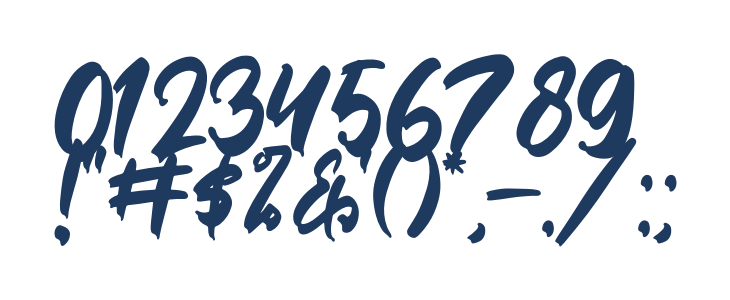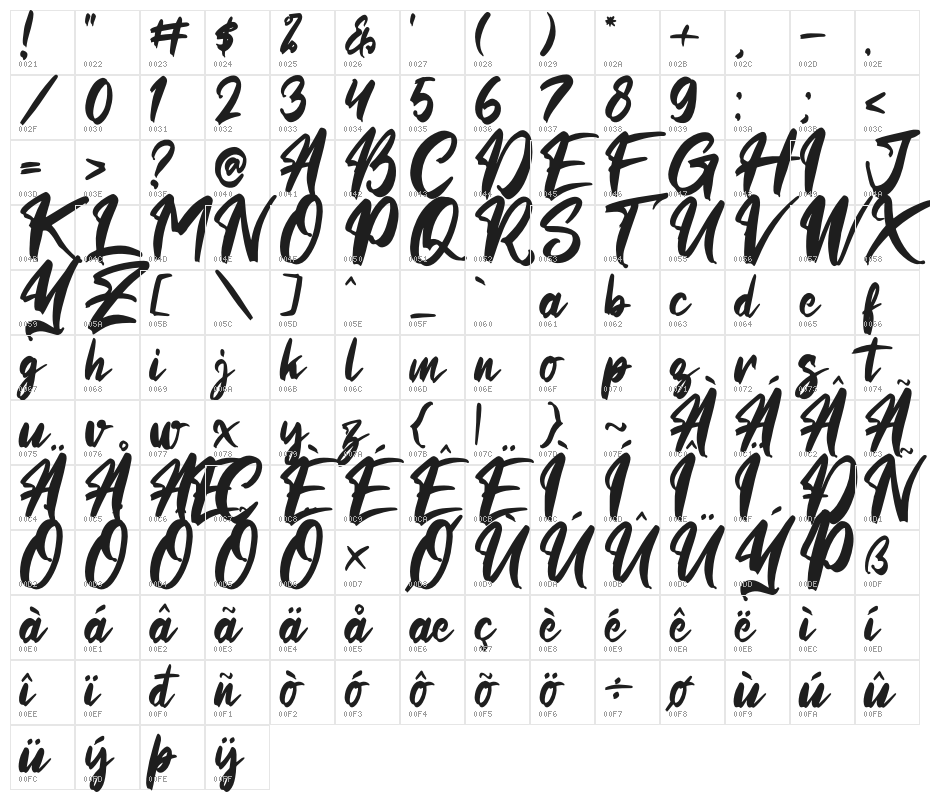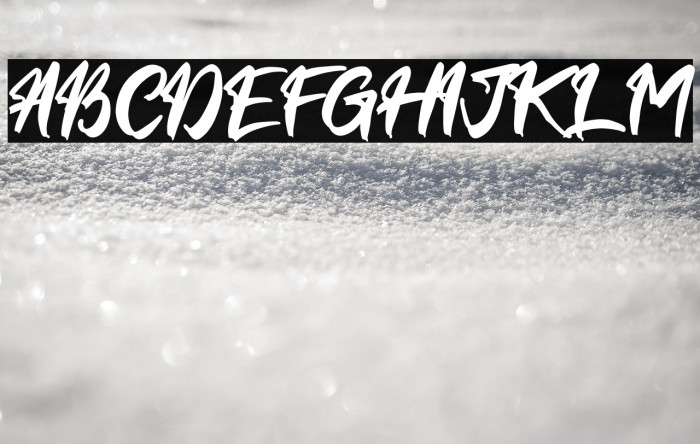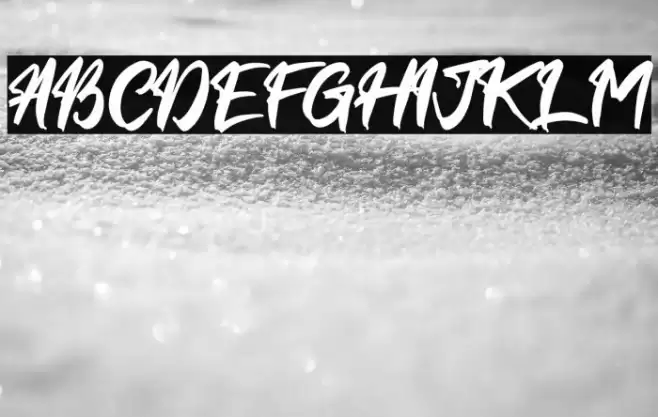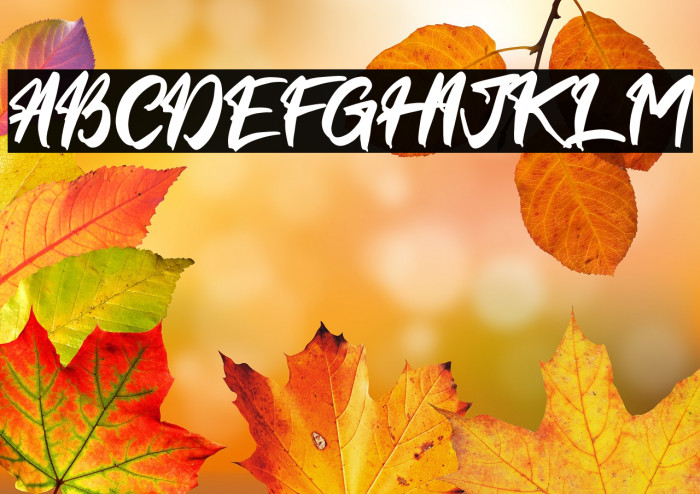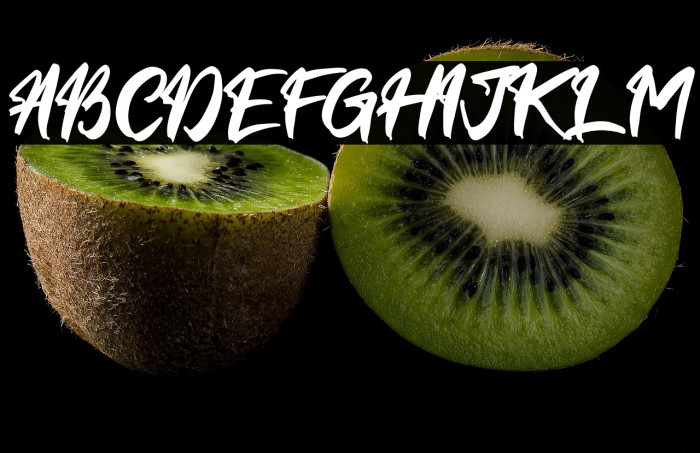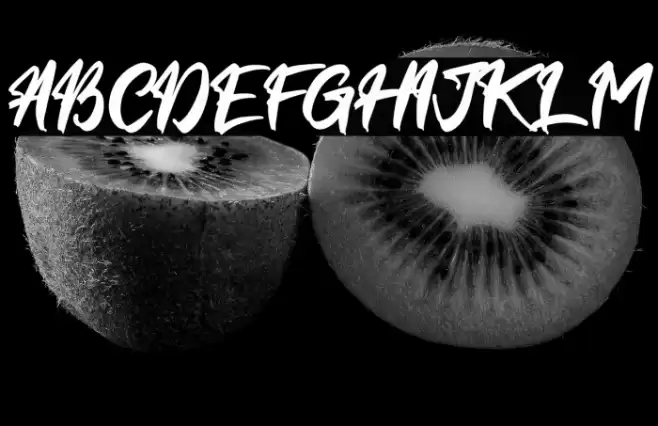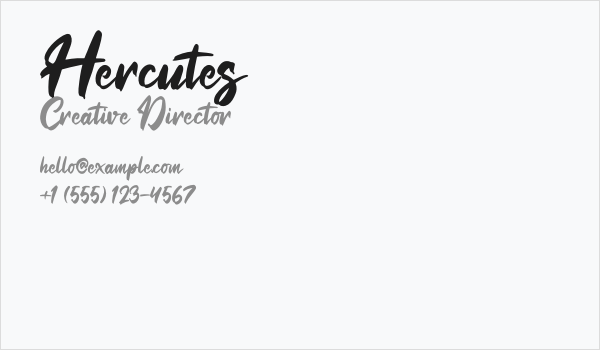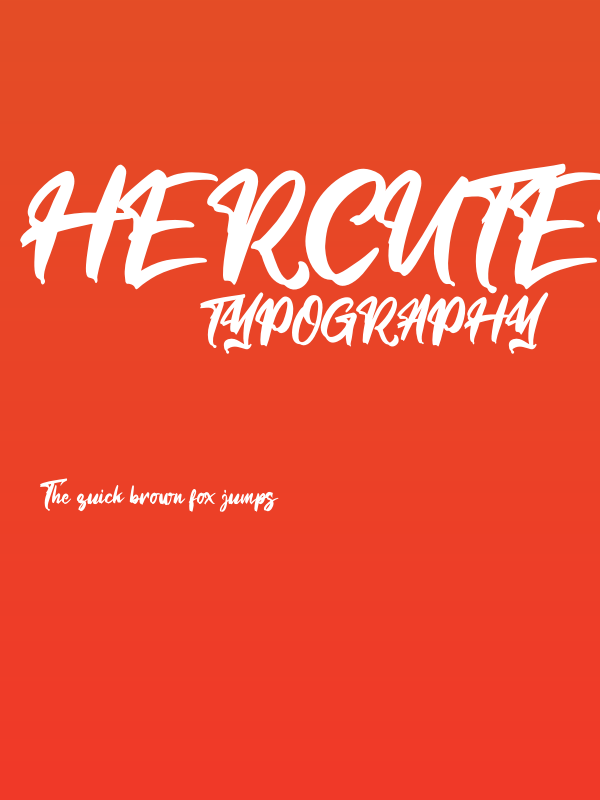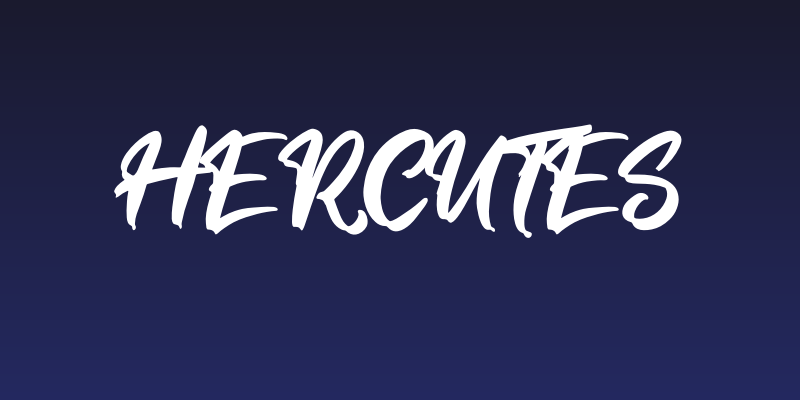
Hercutes Font
Hercutes Description
This font features a bold and dynamic script style, characterized by its fluid, handwritten appearance. The letters are connected with smooth, sweeping strokes that give it a sense of motion and energy. The uppercase letters are particularly striking, with dramatic flourishes and a sense of rhythm that makes each character stand out. The lowercase letters maintain a consistent flow, complementing the uppercase with their rounded forms and elegant curves. Numbers and special characters are designed to match the overall aesthetic, ensuring a cohesive look across all text. The font's boldness and expressive style make it ideal for projects that require a personal touch or a statement piece.
| Proposed Projects | Ideal for branding, logos, invitations, and creative projects that require a personal, expressive touch. |